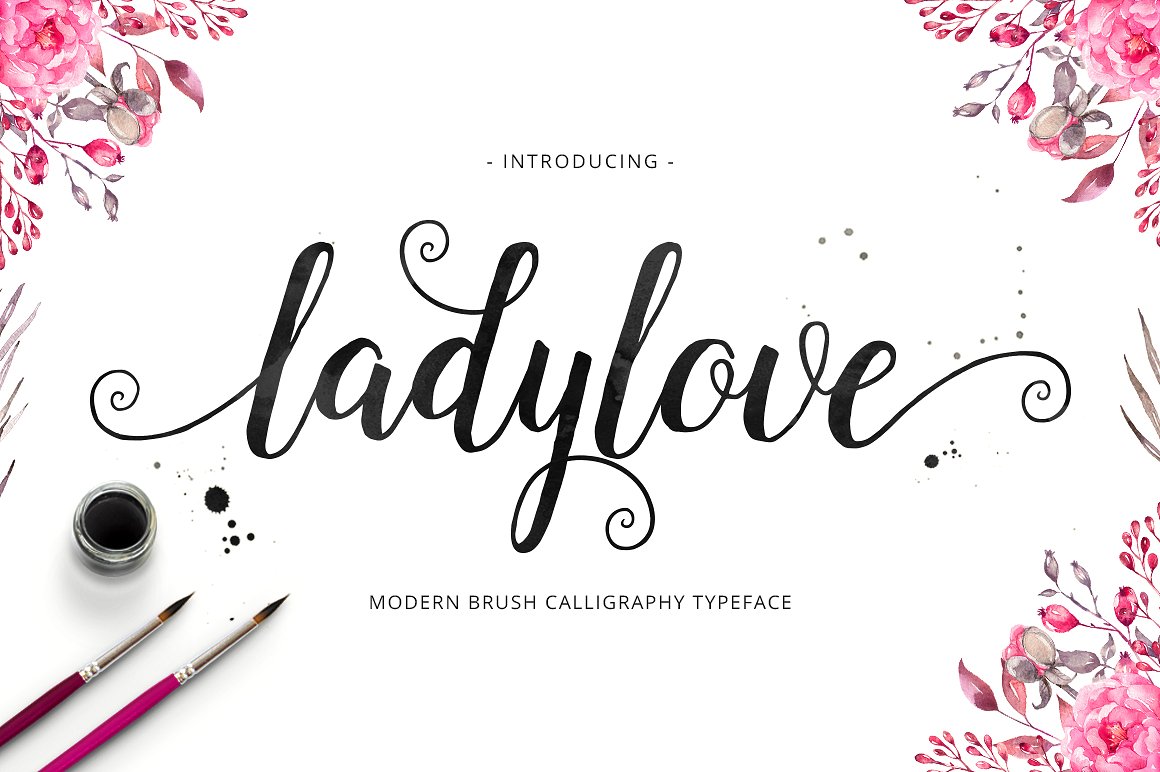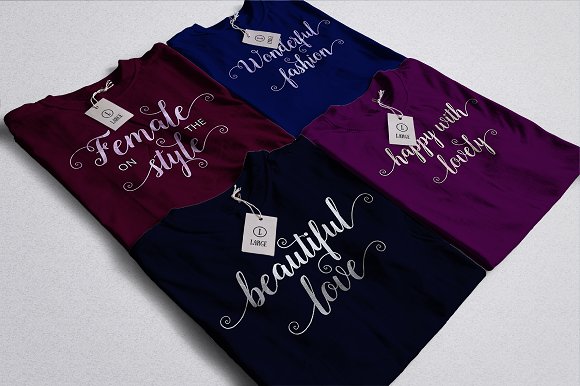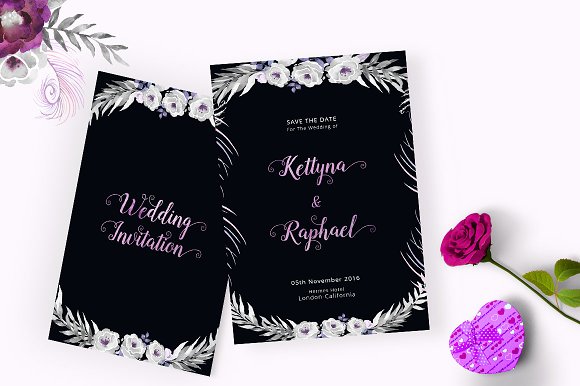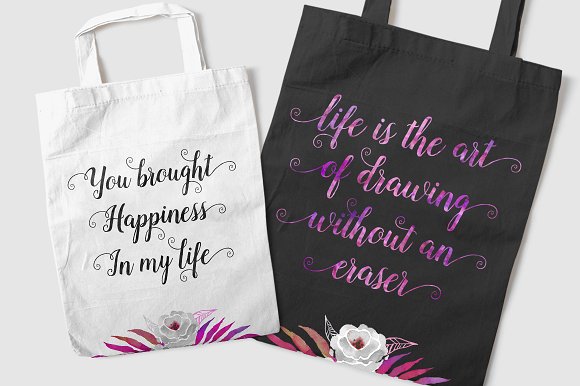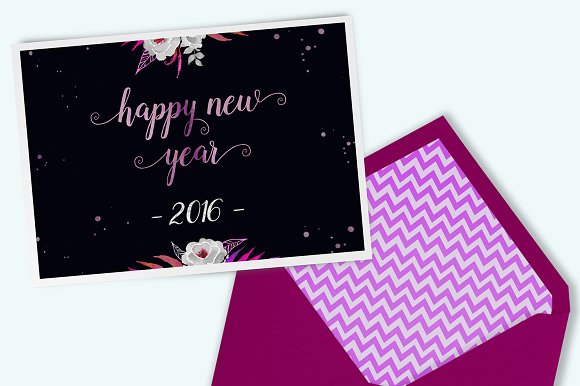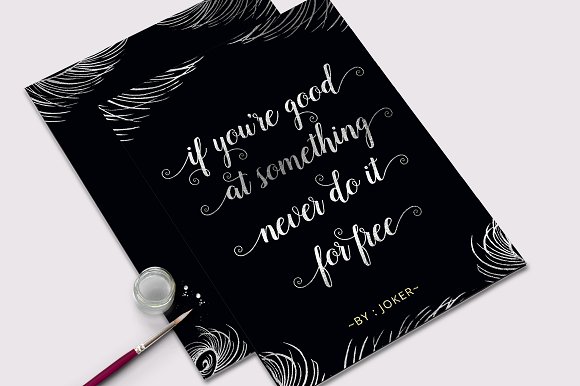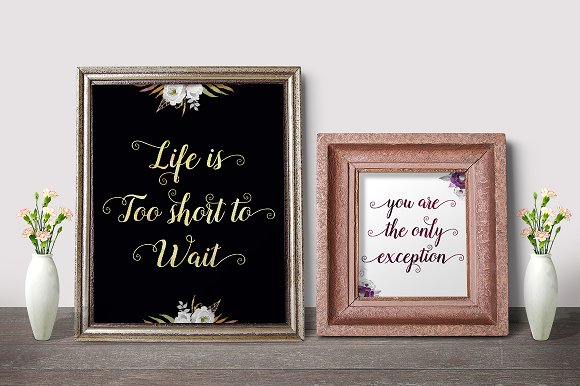
HomeScript FontsLady Love Font Script Fonts Lady Love Font FacebookXPinterestWhatsApp Lady Love Font Poster 2 Lady Love Font Poster 3 Lady Love Font Poster 4 Lady Love Font Poster 5 Lady Love Font Poster 6 Lady Love Font Poster 7 About Lady Love Font Lady Love is a fresh handwritten font that features a vintage calligraphic style with a modern twist. DOWNLOAD NOW People also explored Wistonia Bostter Faith Font Thinking Font Protique Font Gluottine Font Michellate Font Rakasta Font Collegiate Monograms Three Bronks Script Font 273 0 TagsLady Love Font Previous articleHolidays Typeface FontNext articleVandella Font LEAVE A REPLY Cancel reply Comment: Please enter your comment! Name:* Please enter your name here Email:* You have entered an incorrect email address! Please enter your email address here Website: Save my name, email, and website in this browser for the next time I comment. Personal Use Free Mahisya Personal Use Free Read more about this font Winter Soldier Personal Use Free Read more about this font Mama Personal Use Free Read more about this font Tomatoes Personal Use Free Read more about this font BLOG Where to Buy American Fonts Online in 2024 Where to Buy American Fonts Online: The Ultimate Guide for 2024 Looking for the perfect American font to elevate your design projects? You're in the... Modern Sans-Serif Fonts That Brands Love in 2025 Free Fonts Risk: Why Free Fonts Can Be Dangerous for Designers Using Fonts in Digital Marketing: Tips to Strengthen Your Brand Identity